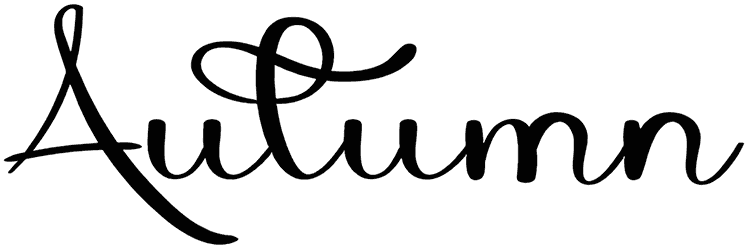
Autumn Font
For creating Valentine’s Day signs, ideological textbooks, or even designing garments, a script font with a natural aesthetic stroke is ideal to sweeten your typography through its fancy curly and warm design.
Today, Autumn makes progress with a creative, inky brush style to make your writing setup cheerful. Be sure that this autumn font puts every possible effort to pull ahead of others in a moment. Upload right away to knock down all adorable sounds to yourself!
Autumn is a fashionable script font. This font is neatly crafted and highly detailed. Whatever the topic, this font will be a wonderful asset to your font library, as it has the potential to enhance any creation.